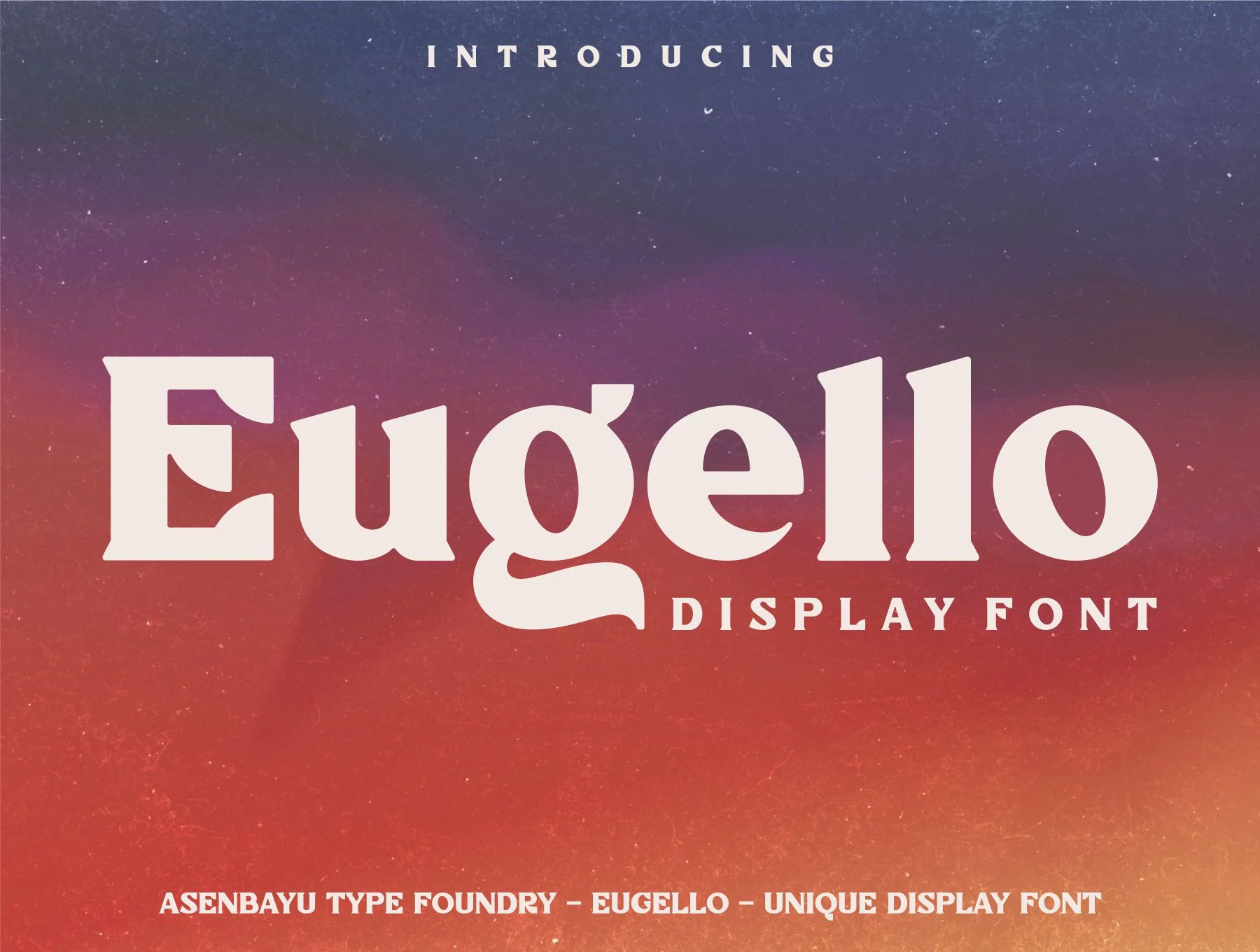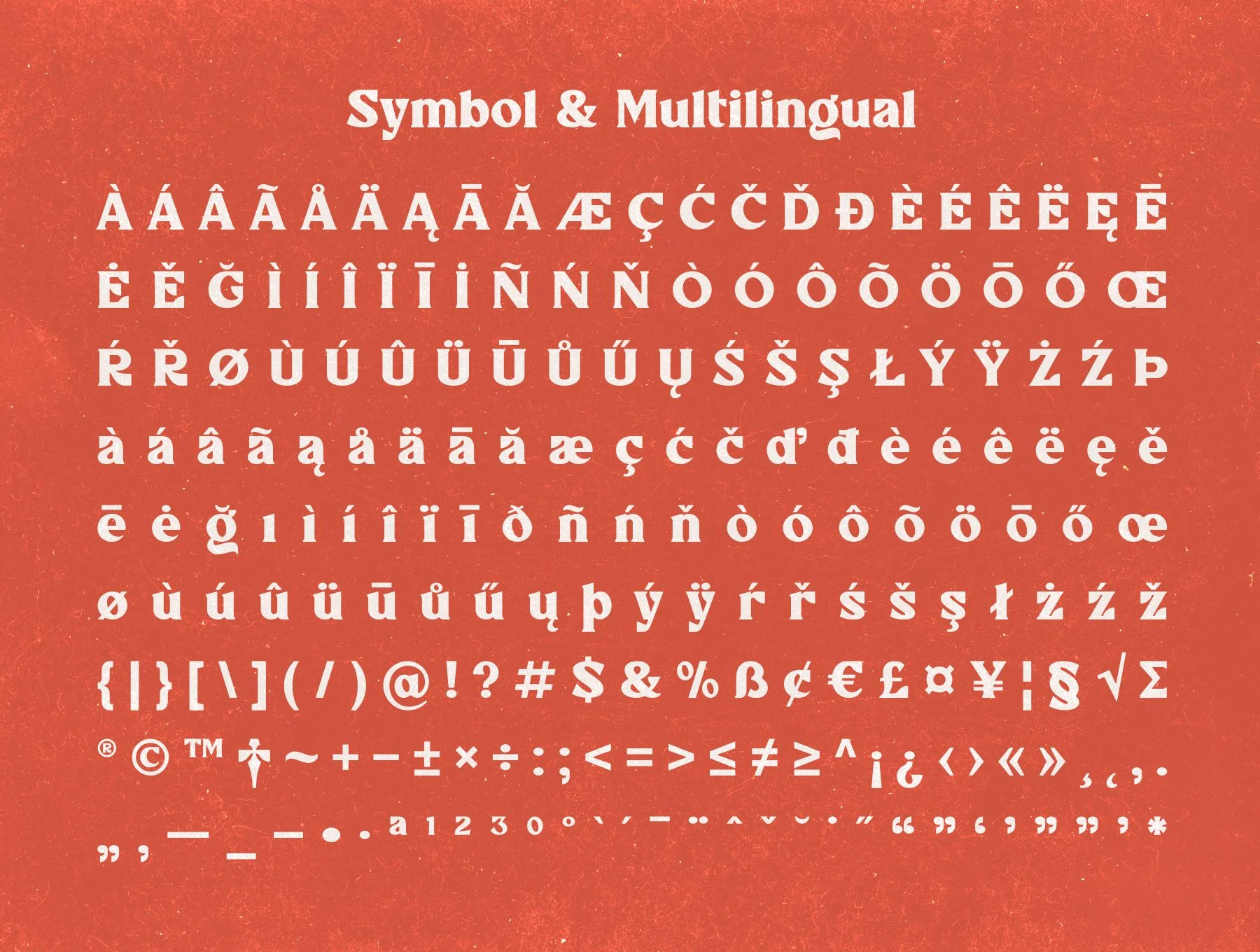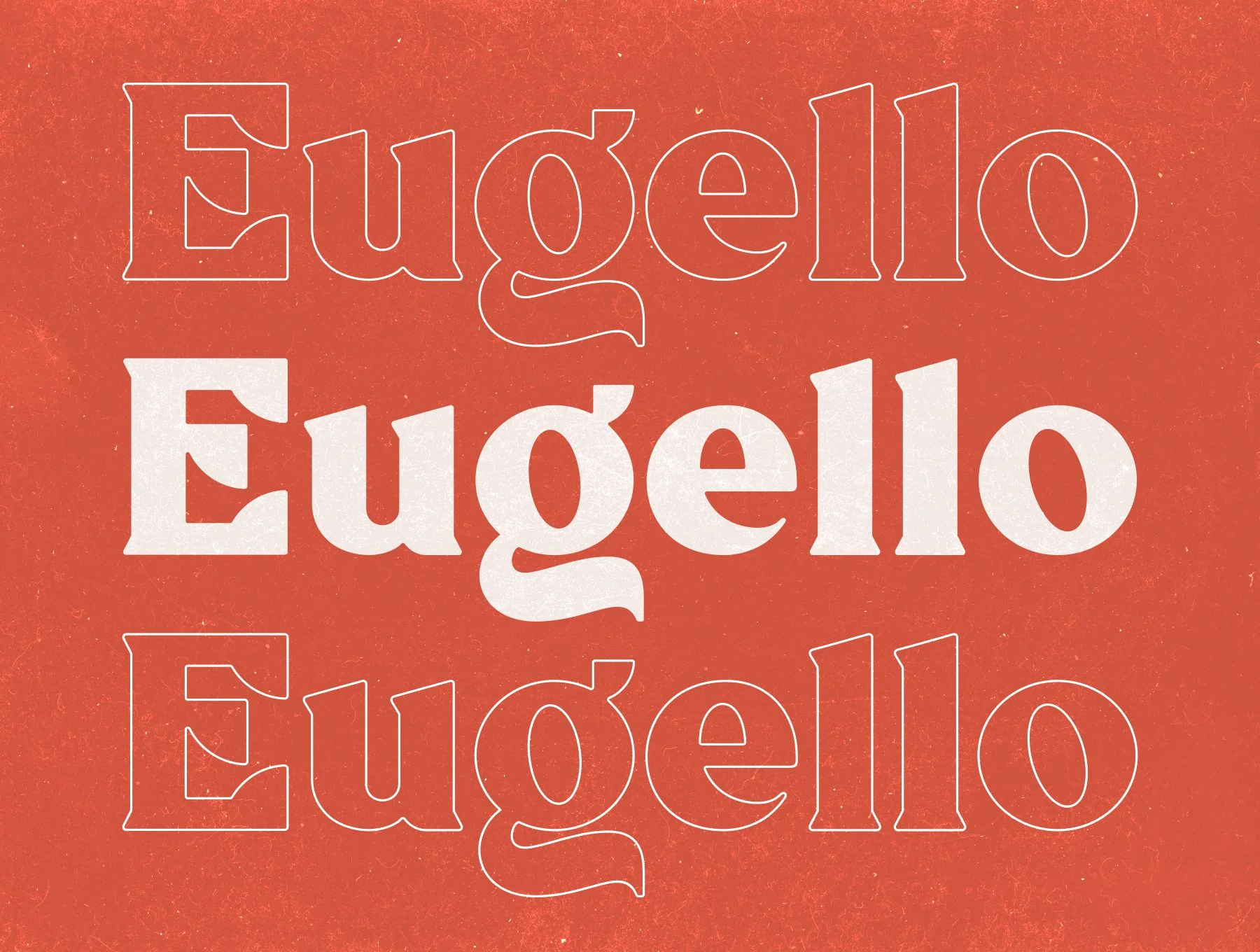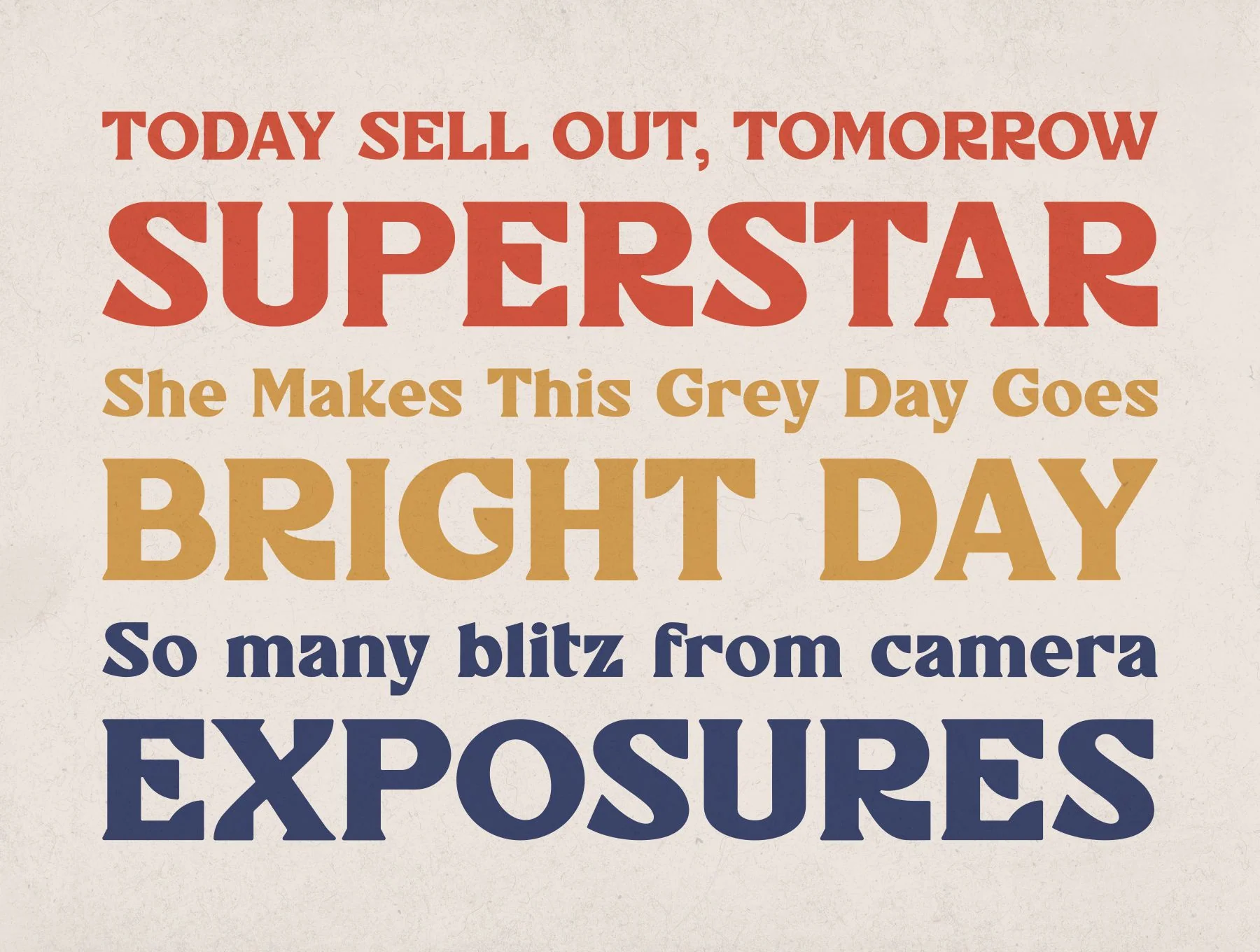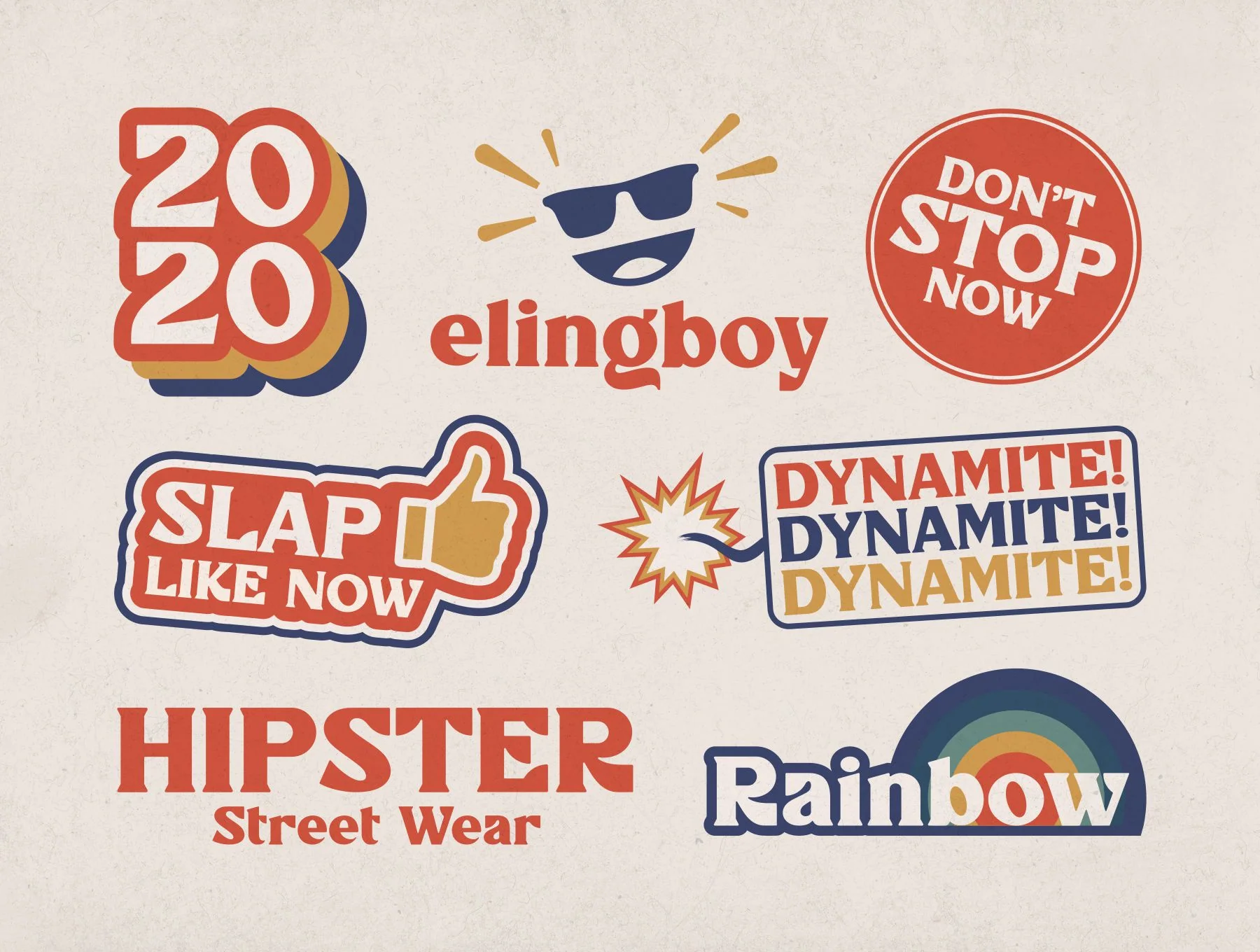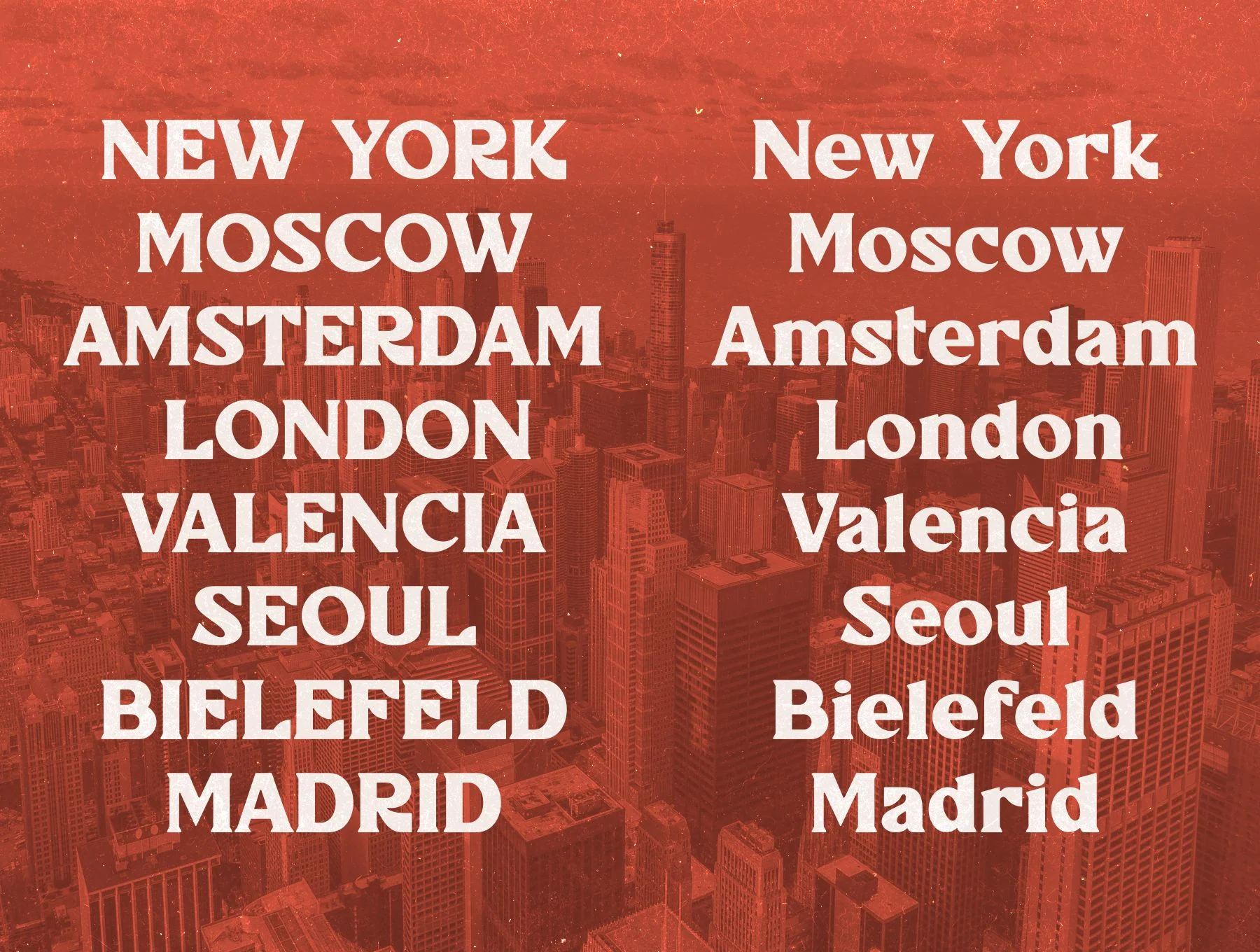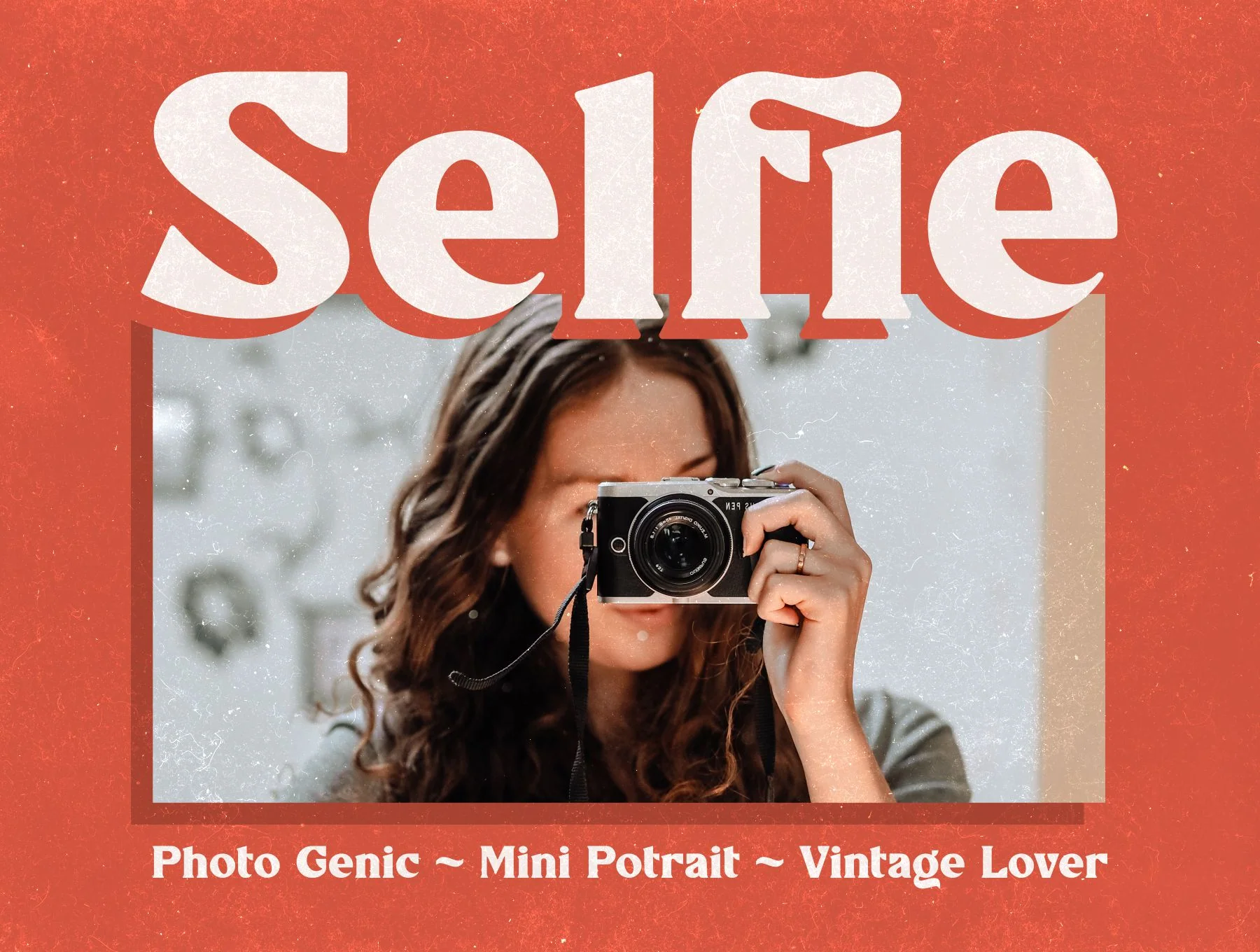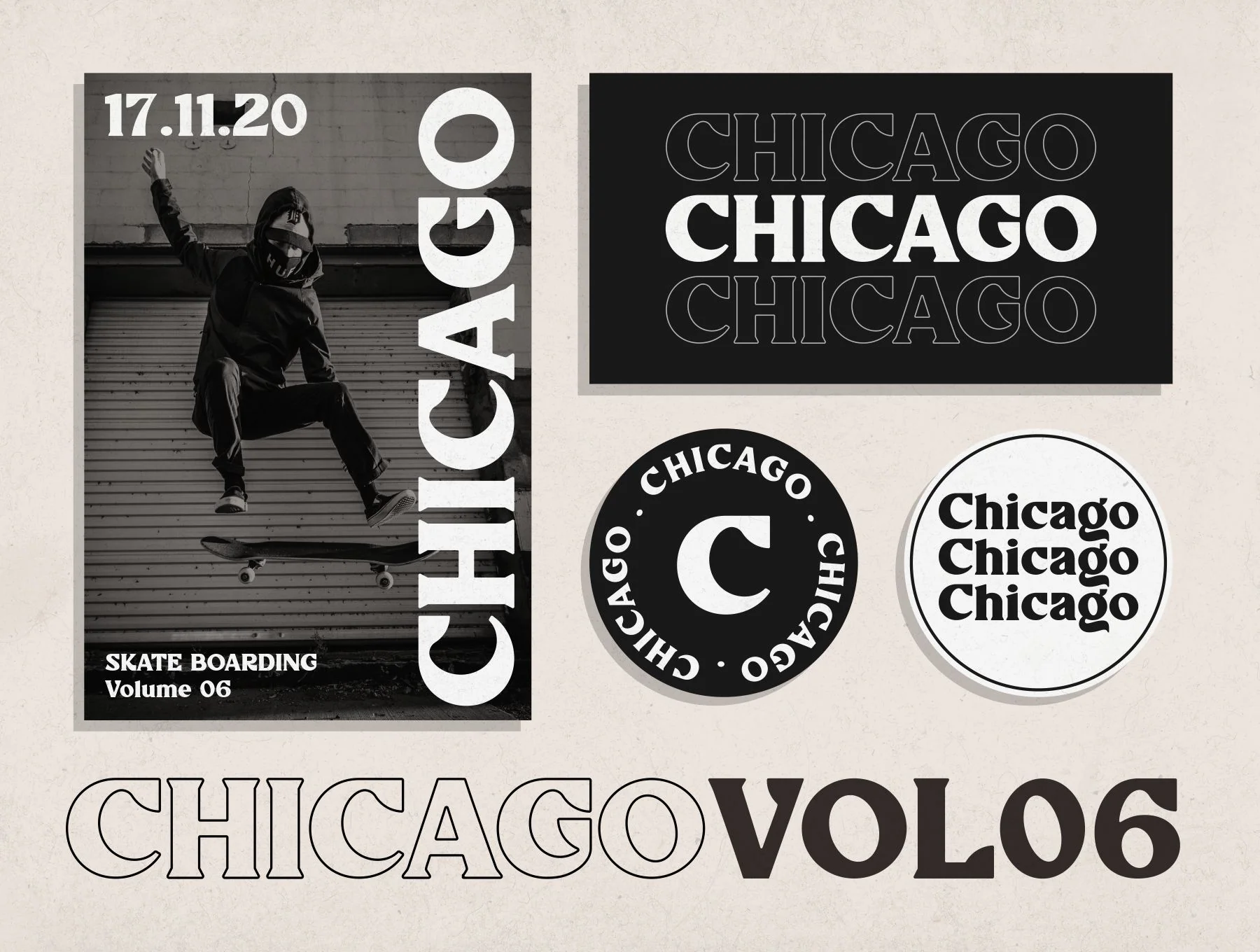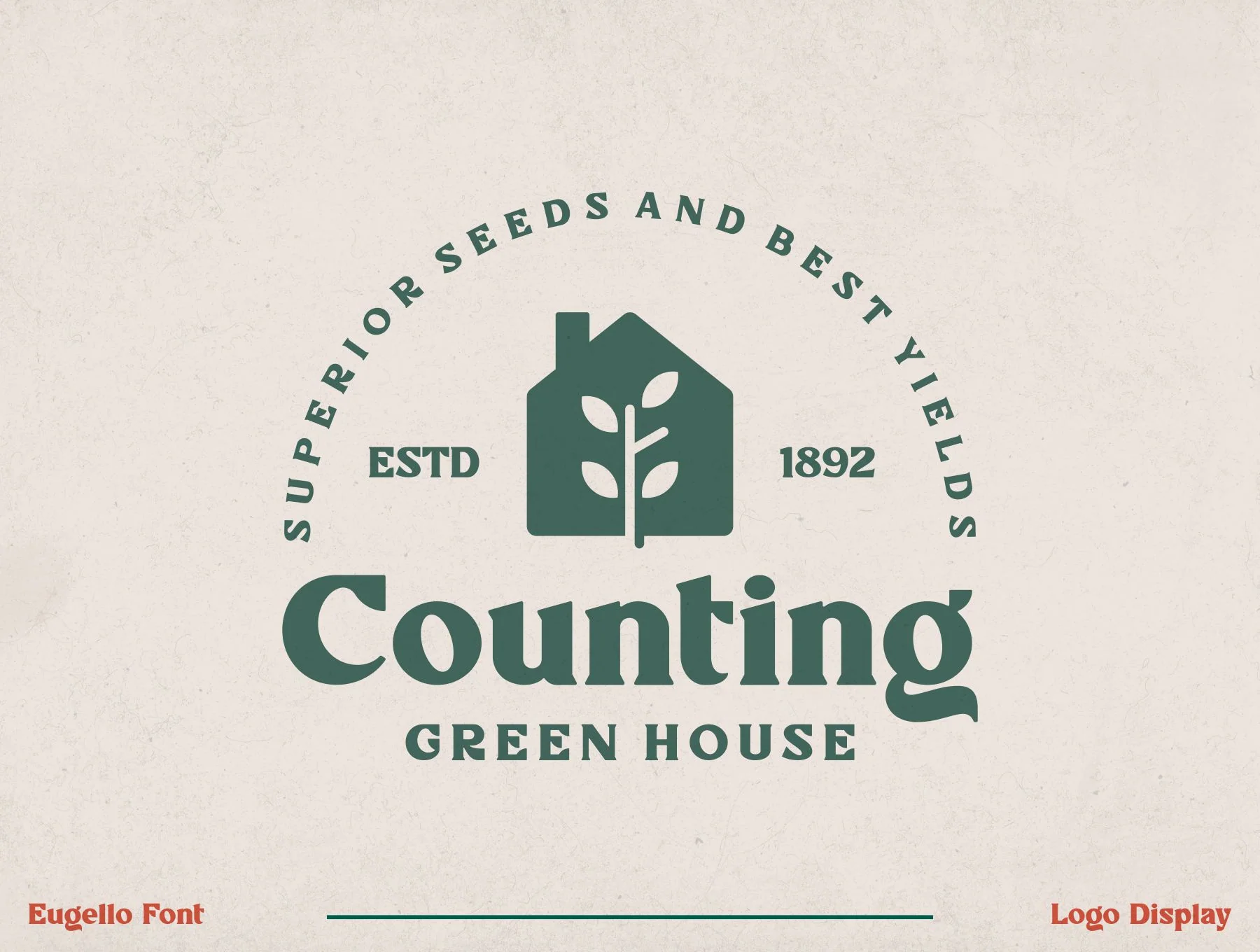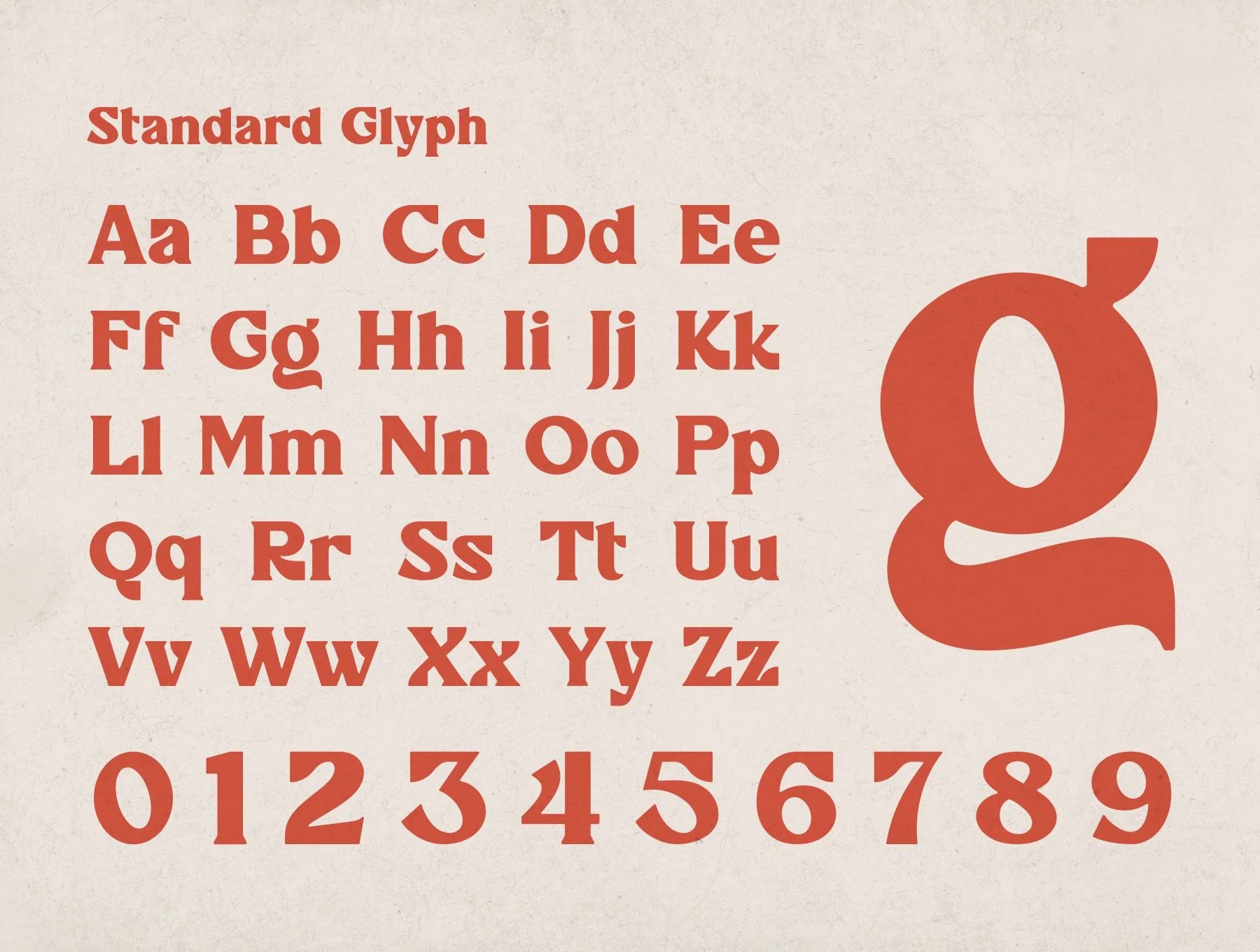
Eugello Font
Distinctive Display Typeface
Basic glyph
Normal weight
Numbers & punctuation marks
Common ligature
Eugello is a versatile display font with distinctive forms, ideal for retro, vintage, and hipster-inspired designs. Use it for branding, posters, logos, magazines, headlines, stickers, and more. It includes OpenType features, kerning, ligatures, uppercase and lowercase letters, numbers, punctuation, and multilingual support.